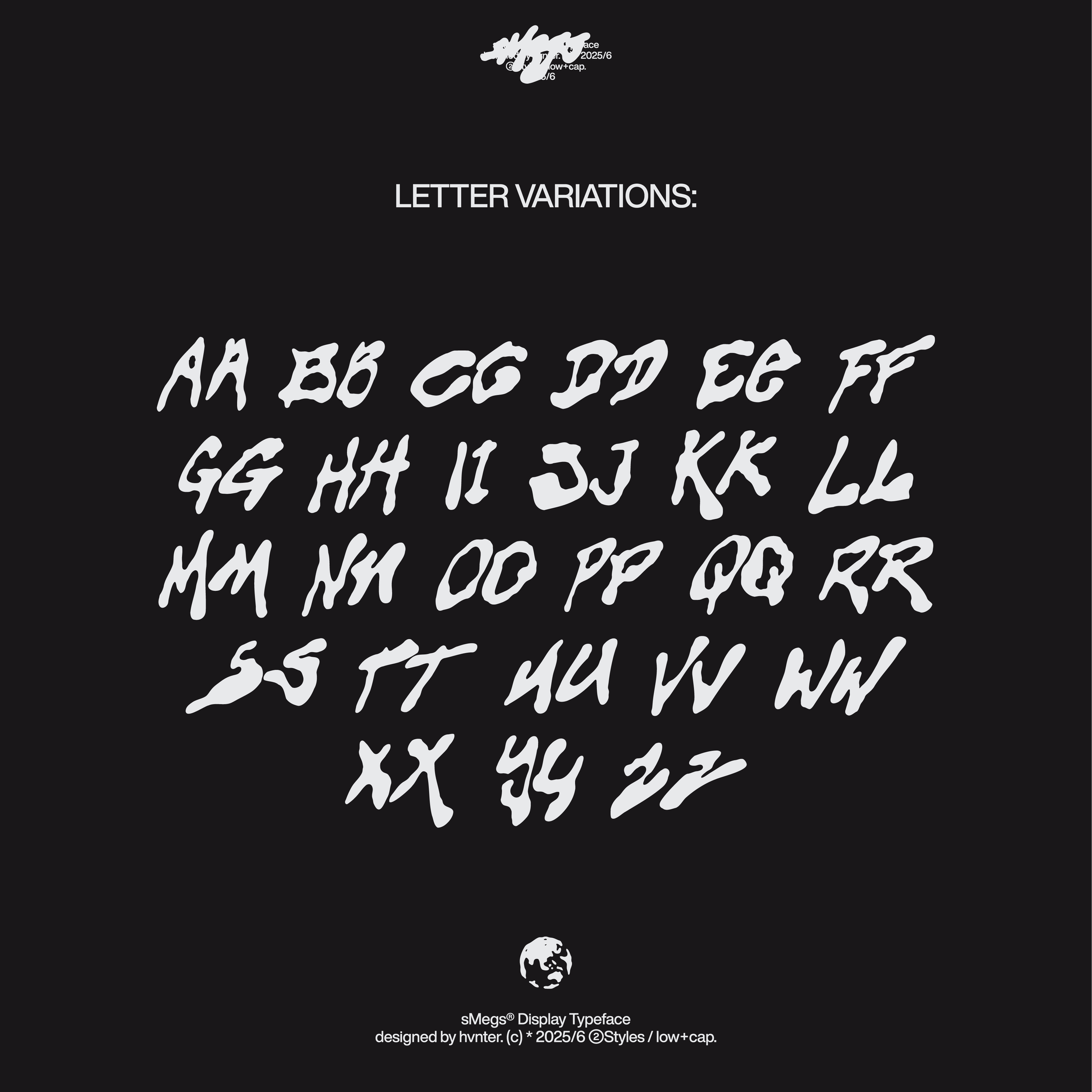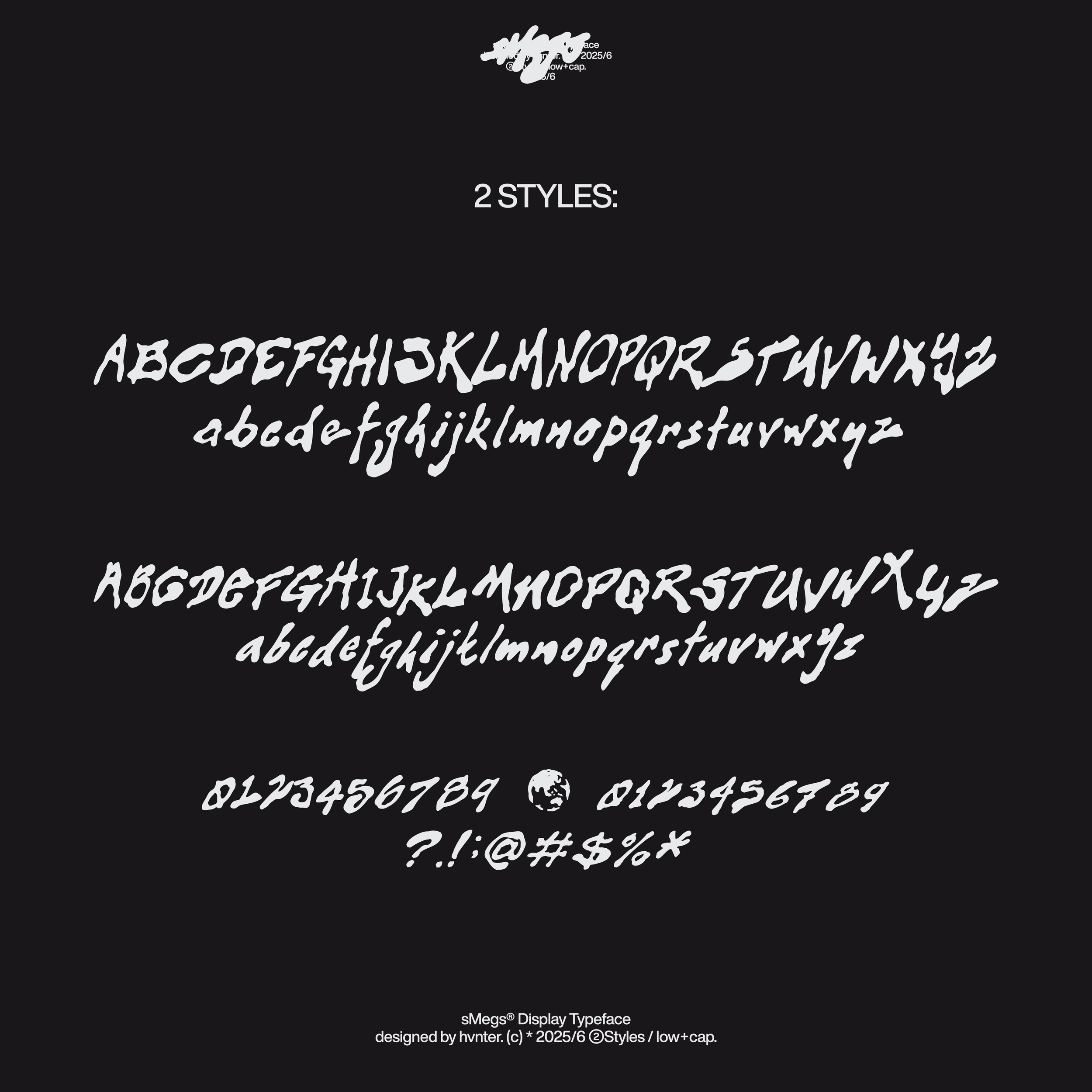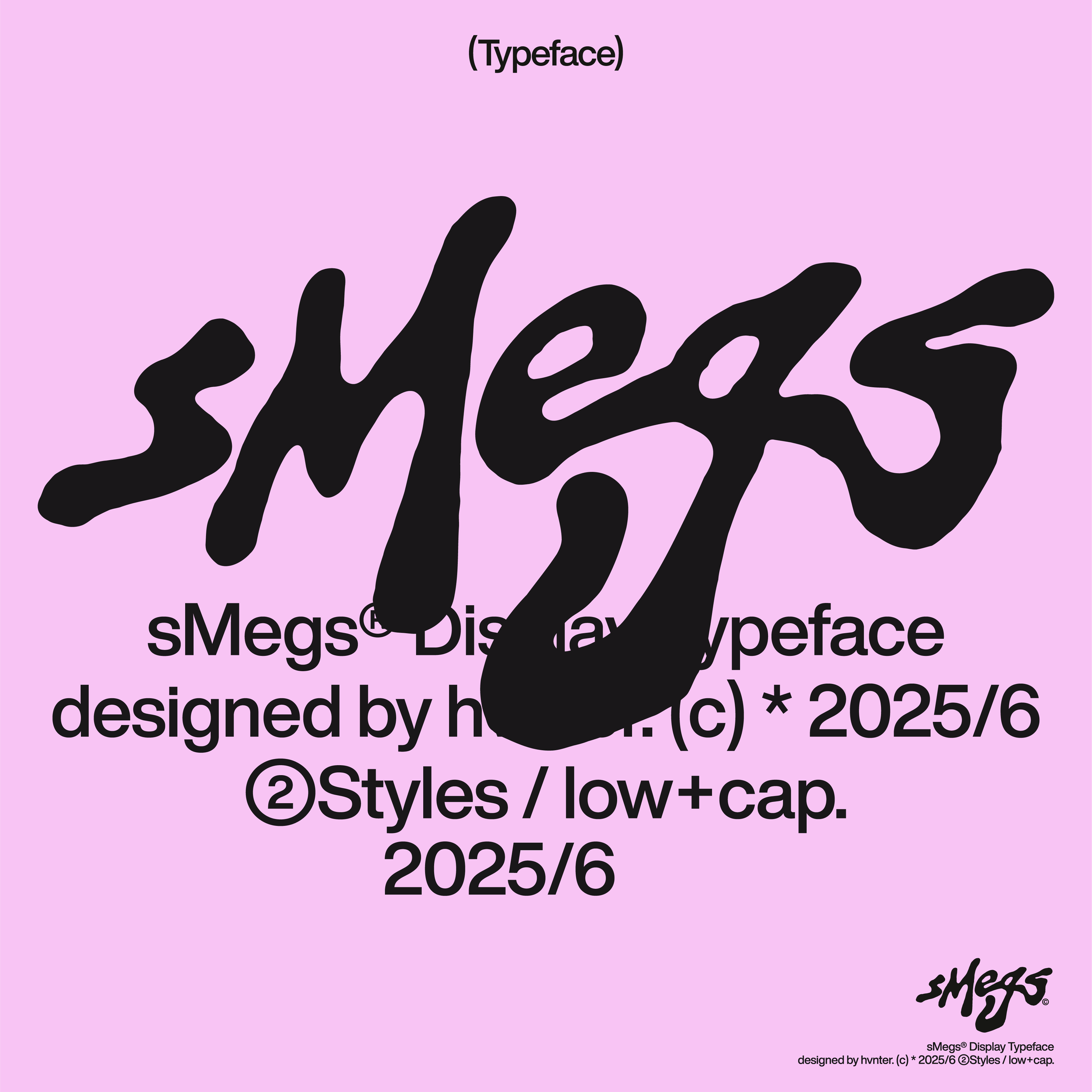
ALL PRODUCTS › SMEGS Typeface $15.00 Messy hand drawn typeface.Includes 2 styles: A-Z, a-z, 0-9 + symbols Messy hand drawn typeface.Includes 2 styles: A-Z, a-z, 0-9 + symbols Purchase Added! Reviews Reviewer Name Review Date Star Rating Description Posted on Etsy Product Show More You Might Also Like Oltra Typeface $20.00 Plumpelo® Typeface (Volume 2) $15.00 Cinema Typeface $10.00 Neotyper Typeface $20.00 OXCYDE Typeface $20.00